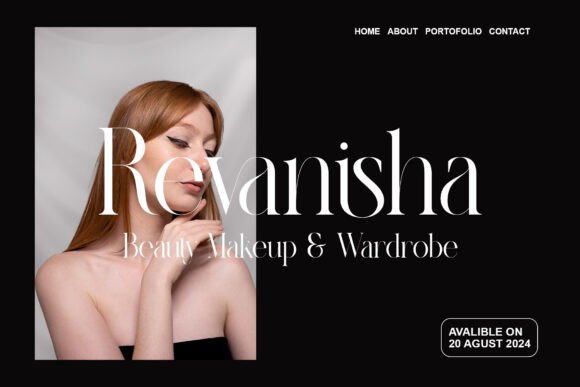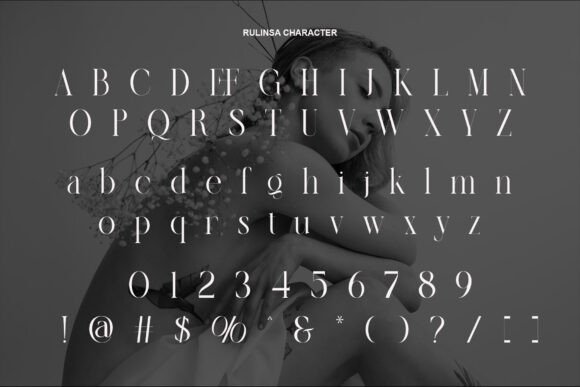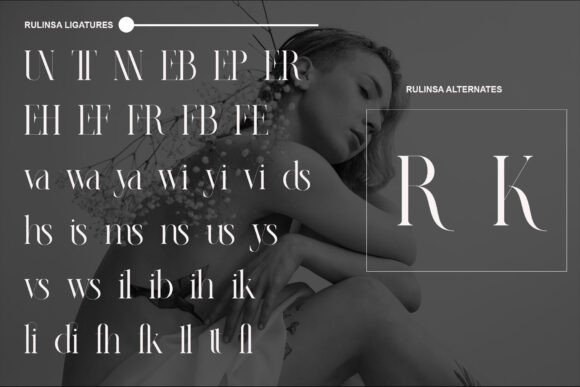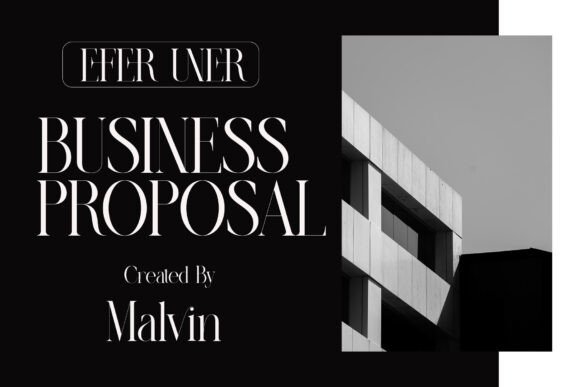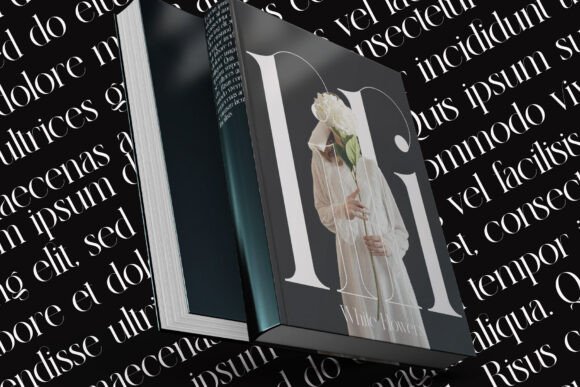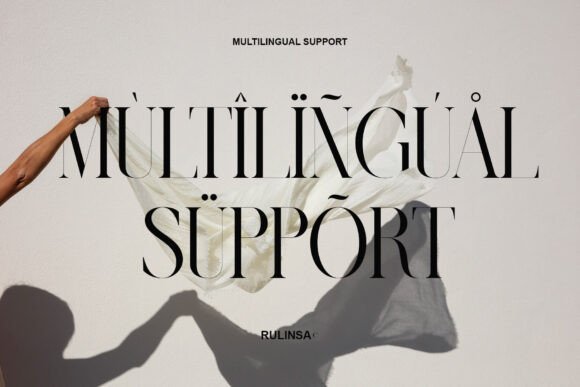
Introduction to Rulinsa Font
Have you ever found yourself staring at a blank page, struggling to bring your creative vision to life? The blank slate can be daunting, but what if you had the perfect tool to spark your imagination? For designers, finding the right font can be the key to unlocking a project’s full potential. That’s where the Rulinsa Font comes in – a beautiful, elegant ligature serif modern font that’s as versatile as it is sophisticated.
Imagine being able to add a touch of refined elegance to your designs, whether it’s a high-end branding project or a creative floral arrangement. The Rulinsa Font does just that, with its bold yet refined ligatures and soft, gentle presence that elevates any project it touches. And the best part? This stunning font is available for free download, making it an invaluable resource for designers of all levels.
With its high-quality design and transparent background, the Rulinsa Font is the perfect addition to any design project. Whether you’re working on a personal creative project or a high-profile client, this font is sure to bring a touch of natural beauty and sophistication to your work.
Key Features of Rulinsa Font
- Unique, elegant style suitable for various design applications
- Comes with a transparent background, allowing for seamless integration with any design
- Perfect for designers looking for a high-quality, free design resource to elevate their creative project
Honest Review: Rulinsa Font
I recently stumbled upon the Rulinsa Font while searching for a unique design resource for a creative project. As a designer, I’m always on the lookout for high-quality fonts that can elevate my work. The Rulinsa Font did not disappoint.
Here are some of the things that work well: ✨
- Unique and creative design: The Rulinsa Font has a distinctive style that sets it apart from other fonts.
- High-quality font files: The font files are clear and well-made, making them perfect for printing or digital use.
However, there are a few limitations: ⚠️
- Limited font styles: The Rulinsa Font only comes in a few styles, which may not be suitable for projects that require a wide range of font options.
Overall, I’m impressed with the Rulinsa Font. It’s a great resource for designers who want to add some personality to their work. With its transparent background and high-quality design, it’s perfect for creative projects. I’d definitely recommend it to fellow designers looking for a unique font.
Tips for Getting the Most Out of Rulinsa Font
To get the most out of the Rulinsa Font, use it for creative projects that require a high-quality, unique font. Experiment with different font sizes, colors, and settings to create visually appealing designs. Also, consider using the font with a transparent background to add depth and dimension to your design.
Common Use Cases for Rulinsa Font
The Rulinsa Font is suitable for a wide range of creative projects, including graphic design, digital art, and typography. Use it for logos, business cards, brochures, and other marketing materials where a unique and high-quality font is required.